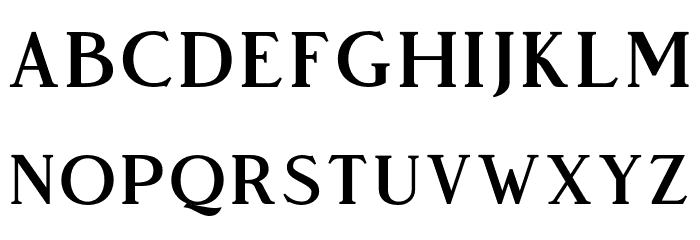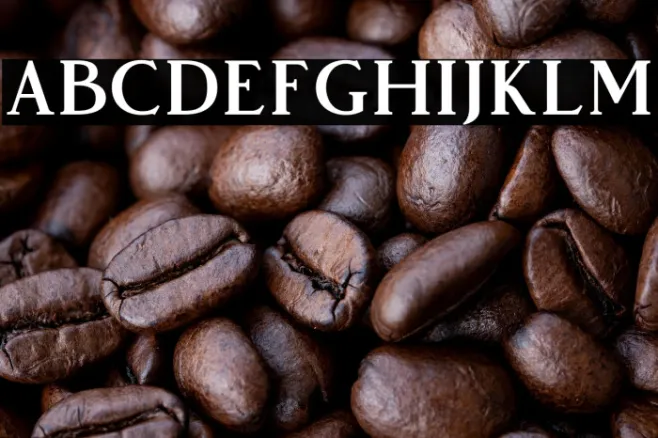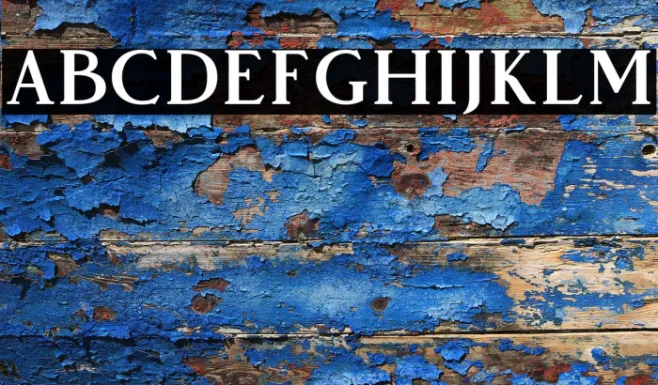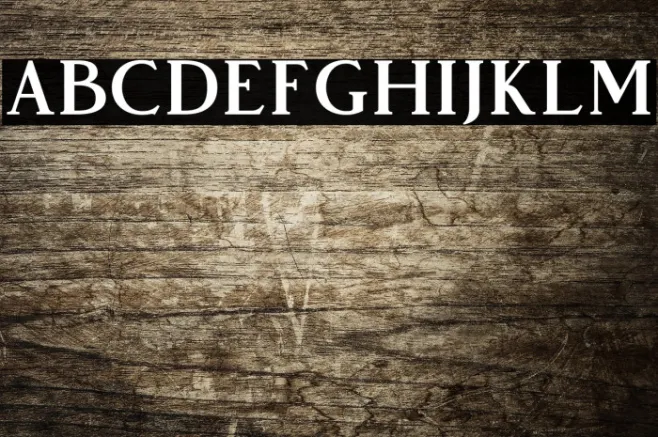
VendeurFree-Regular Font
This font features a classic serif style with elegant and refined letterforms. The uppercase letters are bold and commanding, while the lowercase letters maintain a consistent and harmonious appearance. The serifs are pronounced, adding a touch of sophistication and tradition. The overall design is balanced, with a medium contrast between thick and thin strokes, enhancing readability and visual appeal. The font's structure is well-suited for formal and professional applications, offering a timeless aesthetic that can elevate any design project.
A classic serif font with elegant, refined letterforms and medium contrast.
- Font: VendeurFree-Regular
- Proposed Projects: Ideal for use in editorial design, book covers, formal invitations, branding for luxury products, and corporate identity materials.
- Category: Serif
- Overall Style: Classic